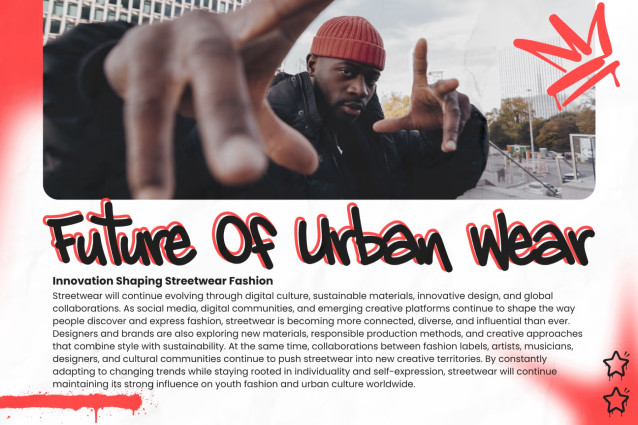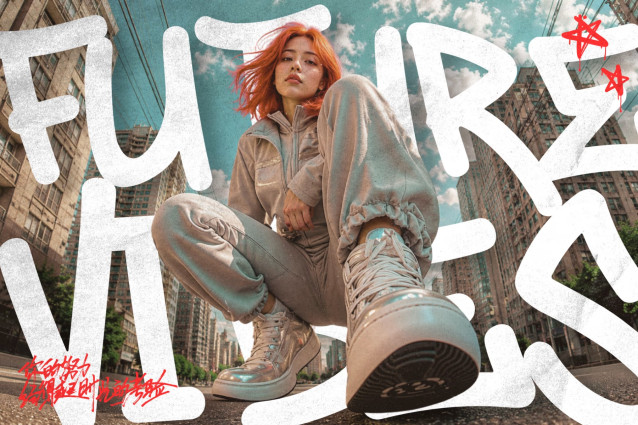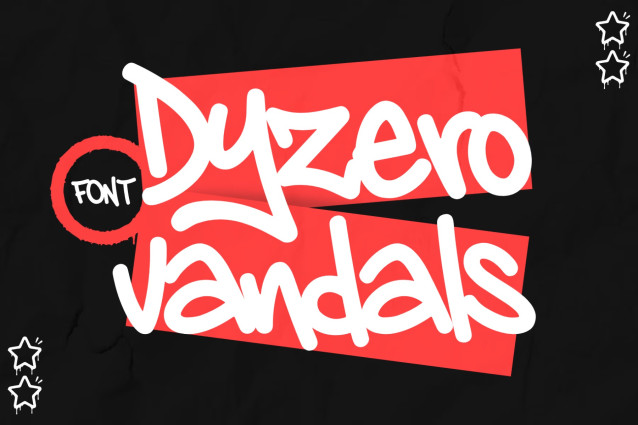
Dyzero Vandals Graffiti Font – Raw Handwritten Tagging
Dyzero Vandals is a raw and expressive handwritten graffiti font created for designers who want authentic street lettering with a natural hand-drawn character. Inspired by spontaneous graffiti tags, marker lettering, urban signatures, and fast-paced street typography, this graffiti tagging font brings an organic and rebellious personality to every word. Instead of looking overly polished or mechanically constructed, Dyzero Vandals graffiti font captures the imperfect rhythm and natural movement that makes handwritten graffiti so visually distinctive.
Designed for creators who love authentic graffiti font aesthetics, Dyzero Vandals combines loose handwritten strokes with energetic tagging characteristics. The result is a versatile street graffiti font that can add personality to logos, apparel, posters, album artwork, stickers, packaging, social media graphics, and branding. Its natural appearance makes every word feel individually written rather than simply typed, giving designers a powerful tool for creating memorable visual identities.
The handwritten construction of Dyzero Vandals graffiti font makes it particularly effective when you want typography to feel personal, spontaneous, and rebellious. This graffiti tagging font is inspired by the visual language of urban walls, sketchbooks, marker tags, and street culture, making it an excellent choice for projects that require authentic attitude rather than conventional typography.